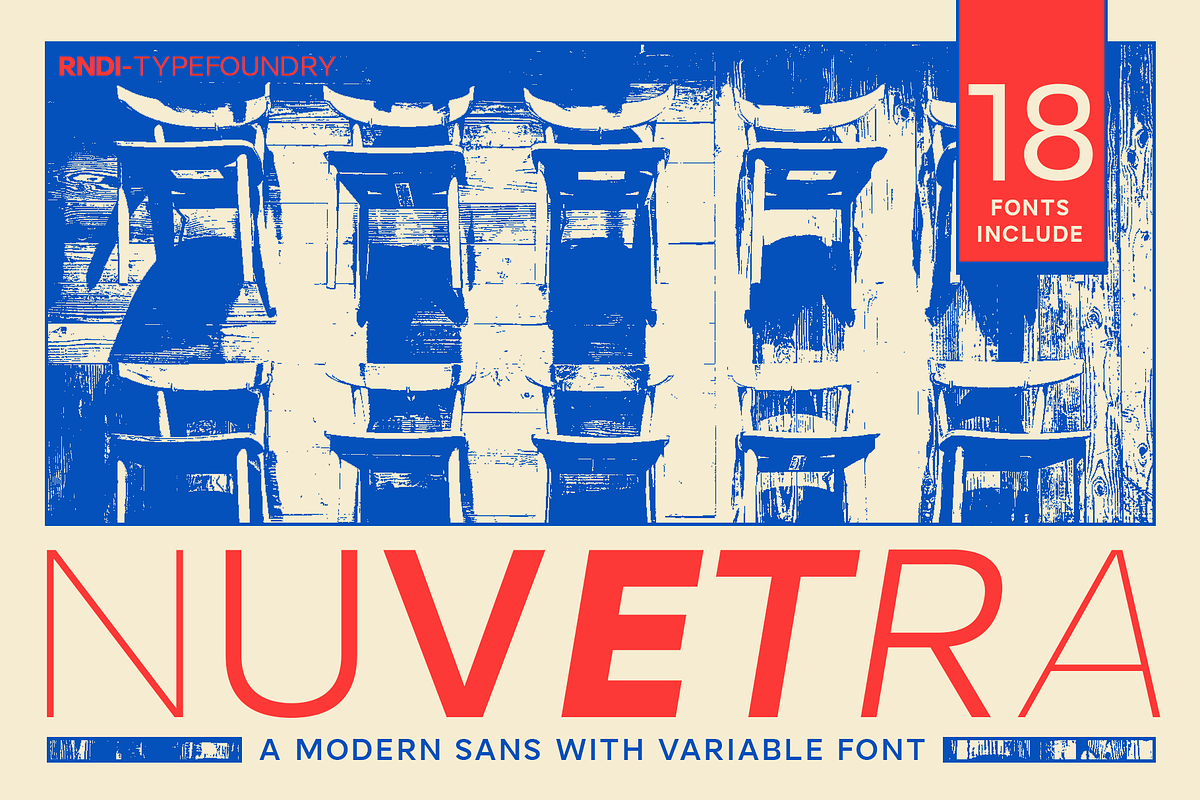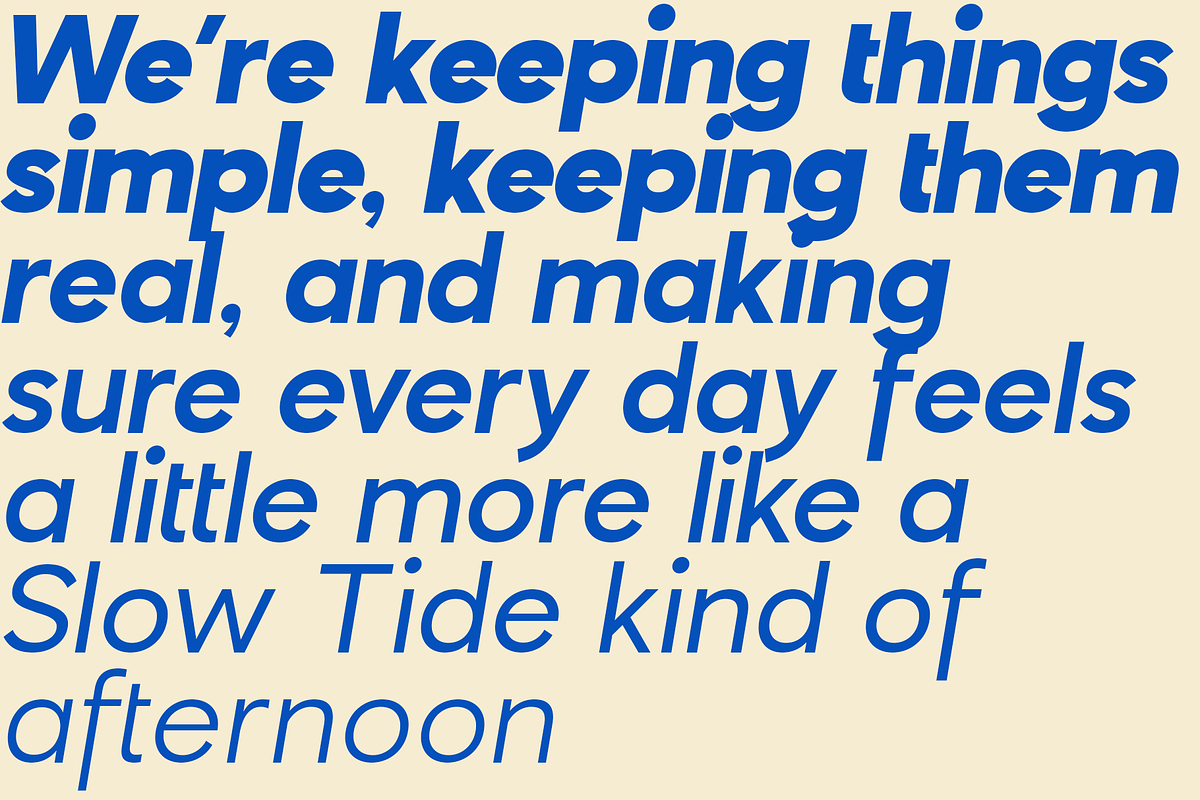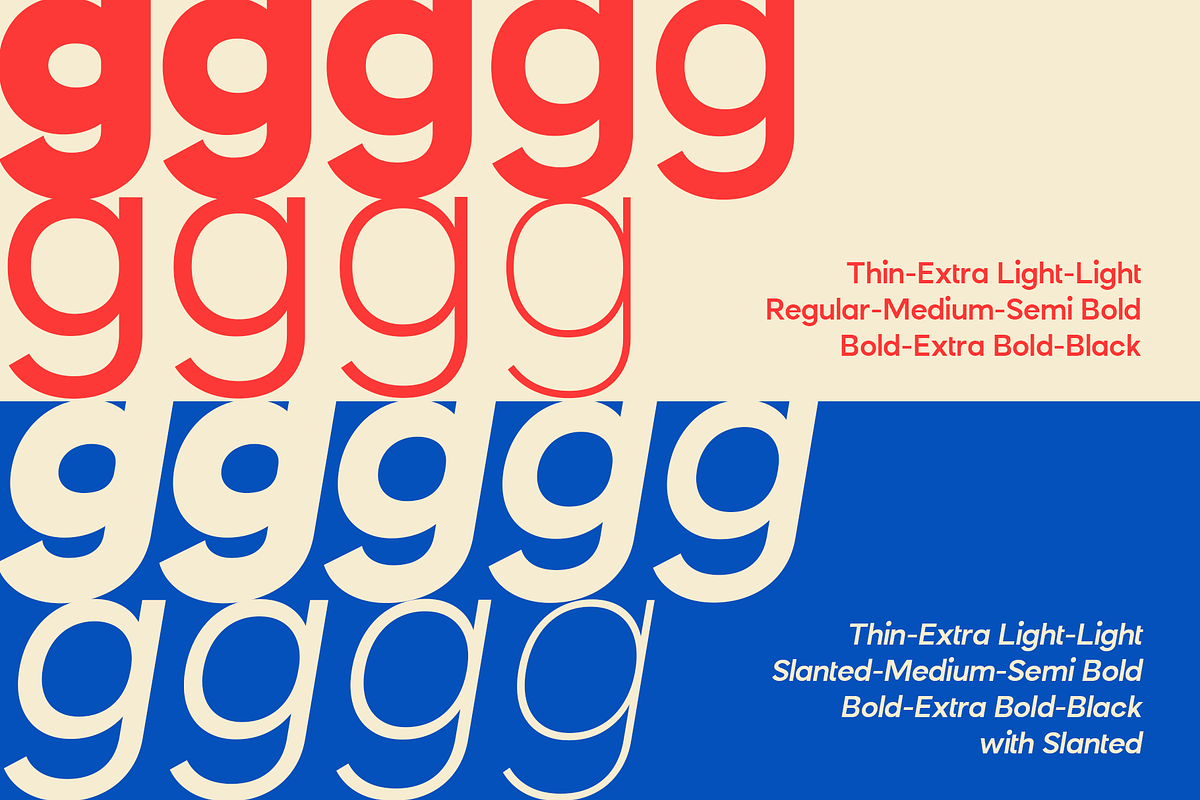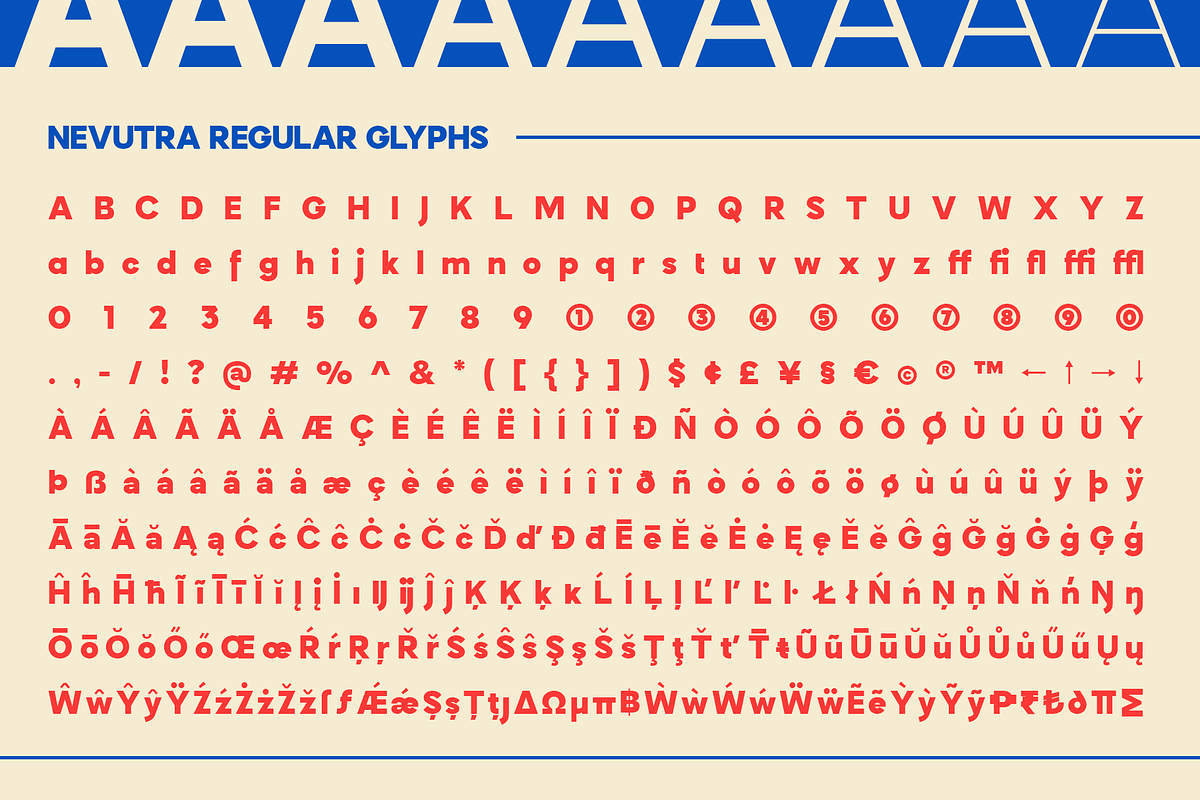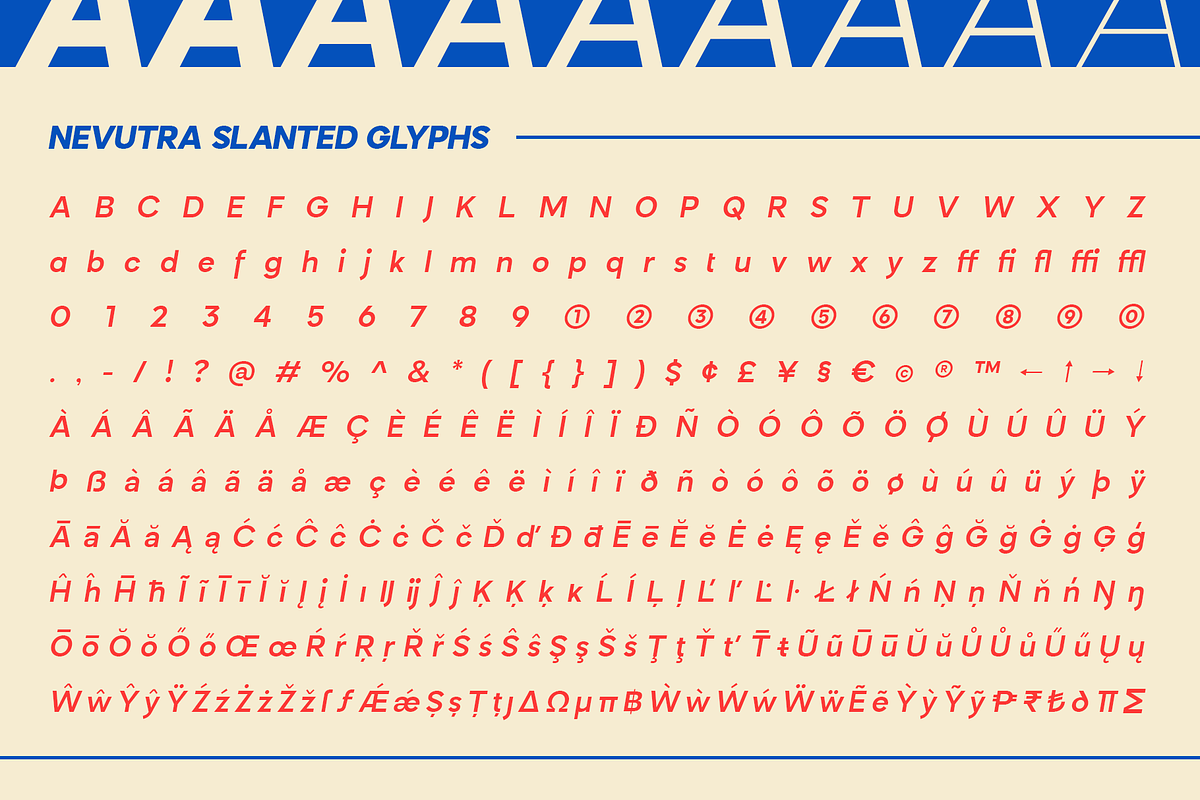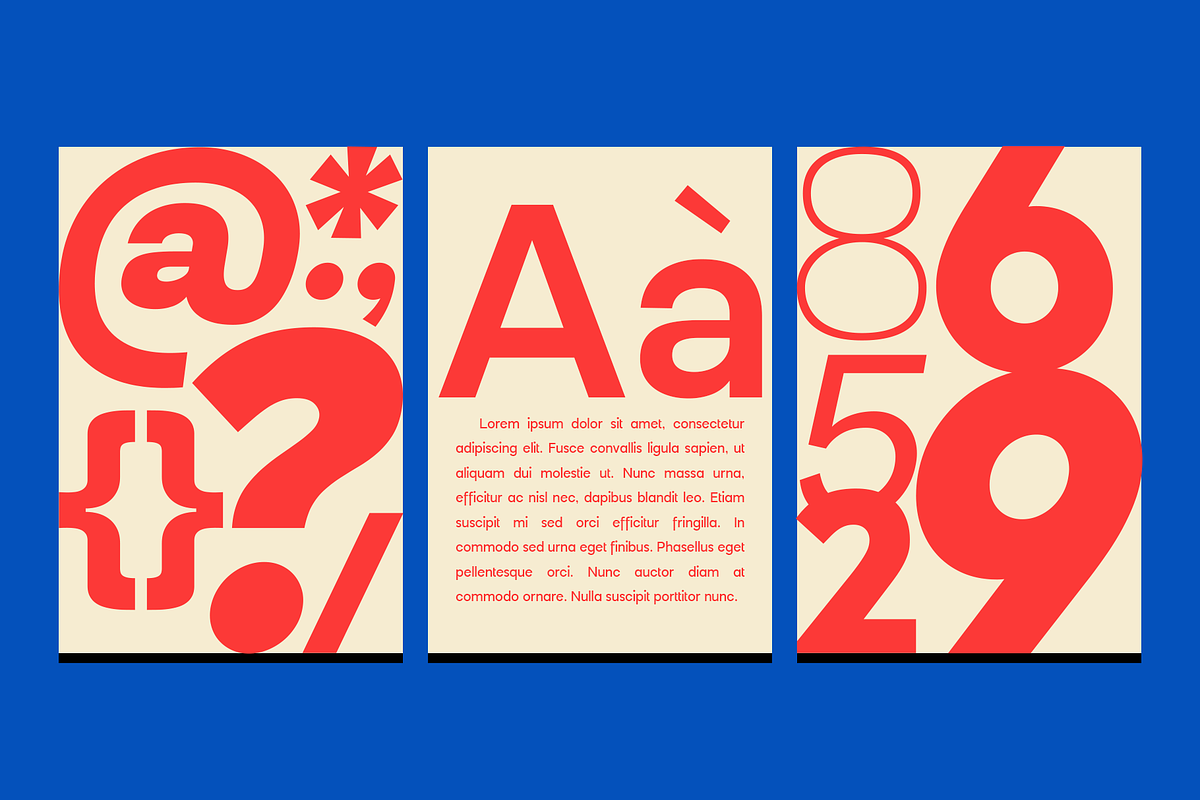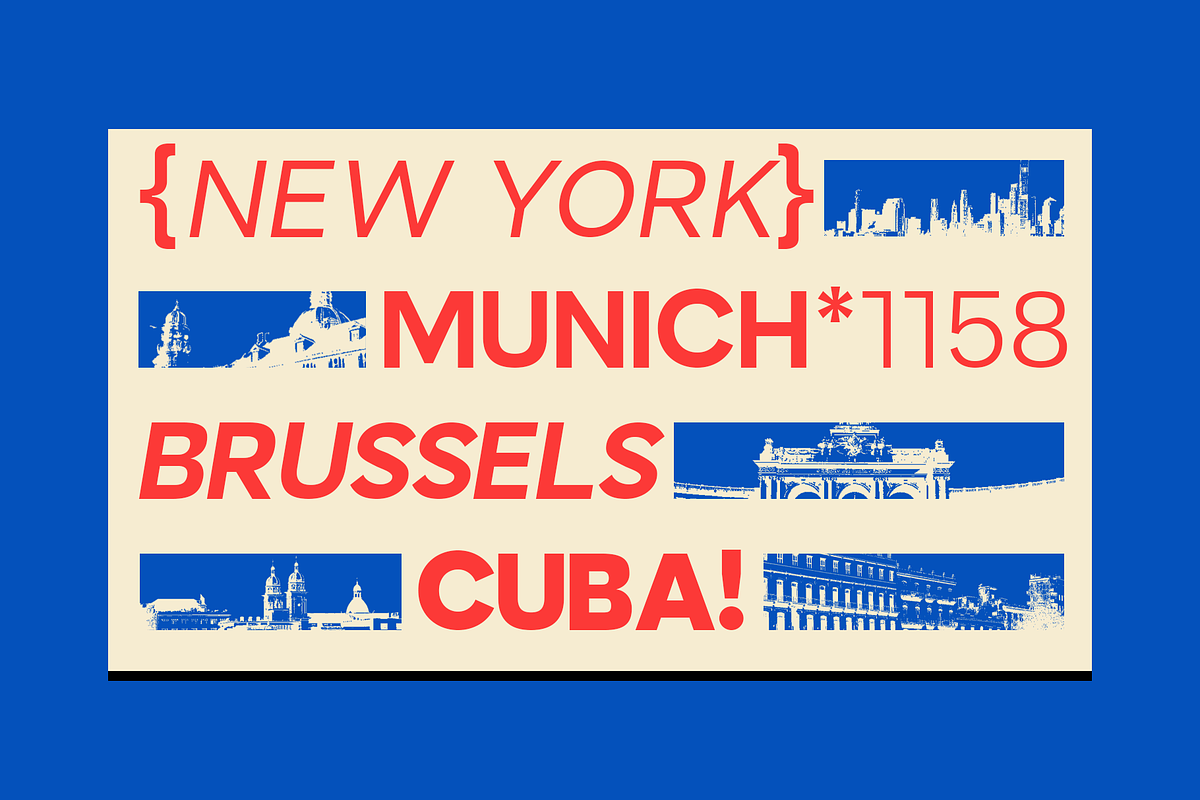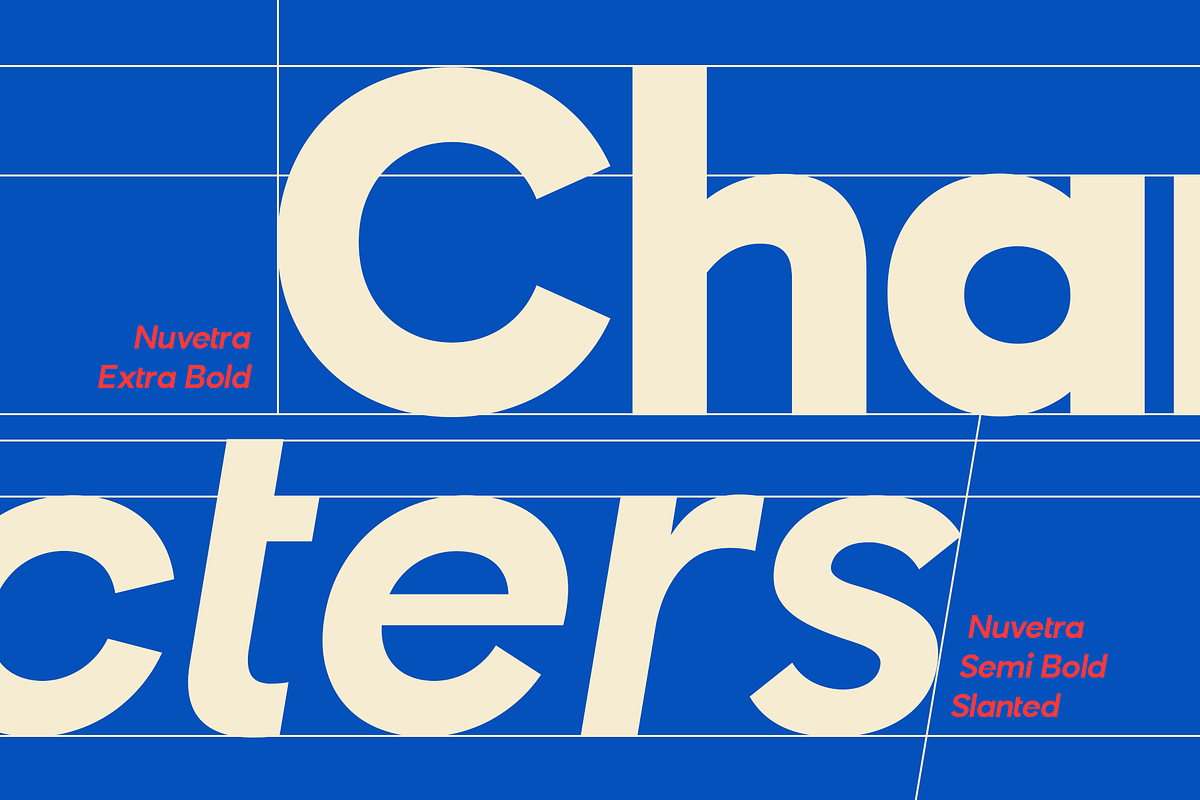
Nuvetra
Nuvetra is a modern geometric sans-serif released by RNDI Typefoundry, packaged as a variable font with 18 static styles. The family spans 9 upright weights (Thin through Black) plus a full matching set of oblique/slanted variants, giving designers broad expressive range within a single cohesive system.
Its letterforms are clean and rounded — the double-story lowercase "g" is a standout character — with generous apertures that keep it highly legible at both display and body sizes. The character set is extensive, covering extended Latin, diacriticals, ligatures (ff, fi, fl, ffi, ffl), circled numerals, and multiple currency glyphs.
Nuvetra works well across branding, poster design, editorial layouts, packaging, apparel, and digital UI — as demonstrated in the promotional materials showing it applied to everything from tote bags to footwear ads to large-scale typographic posters.